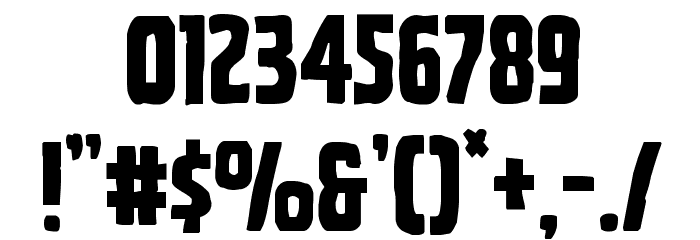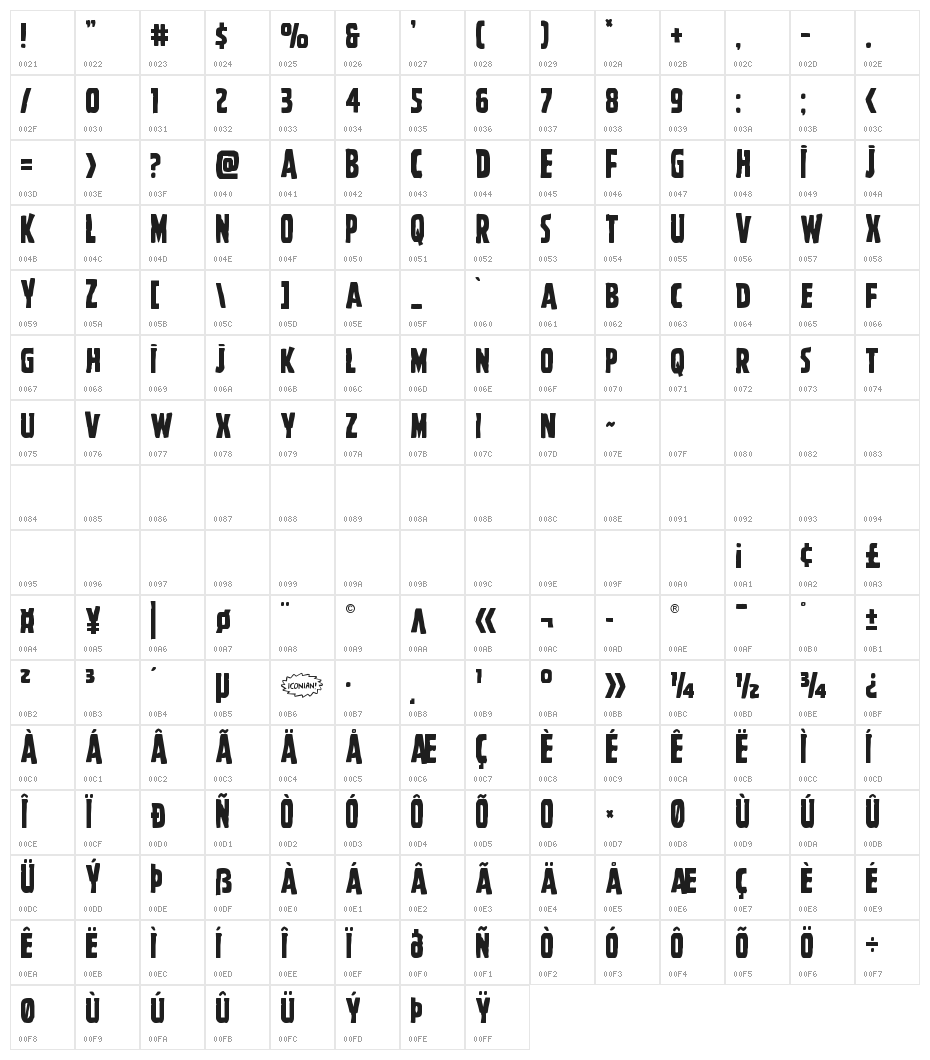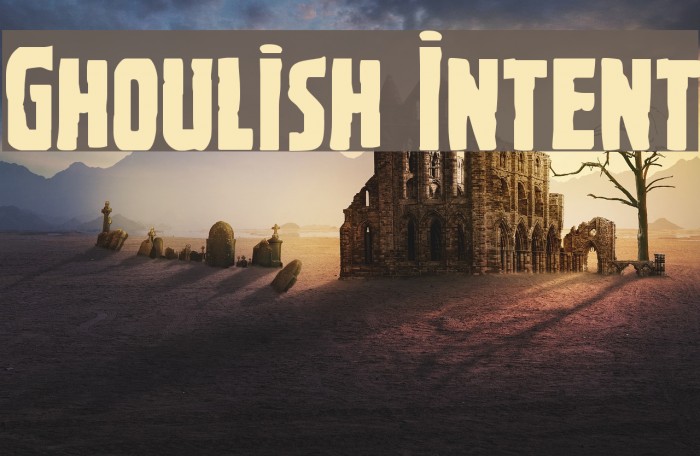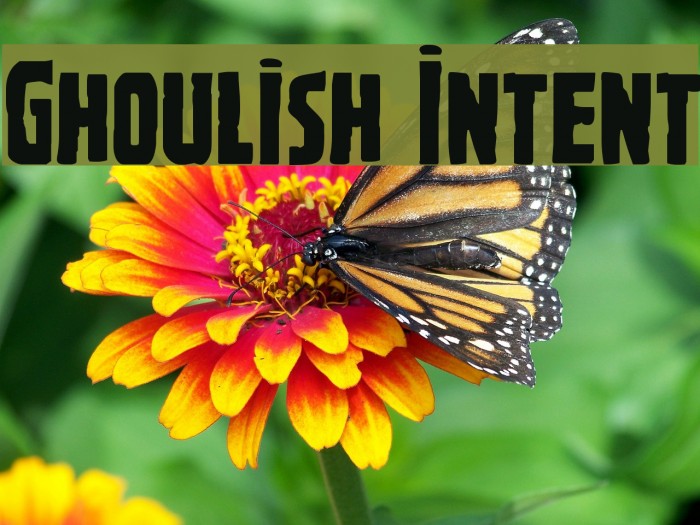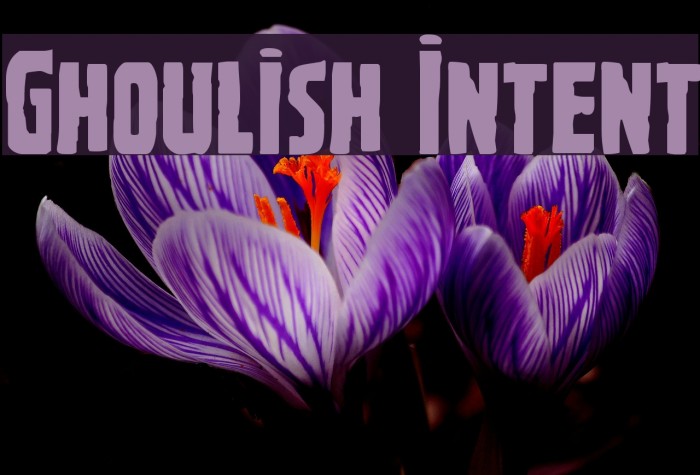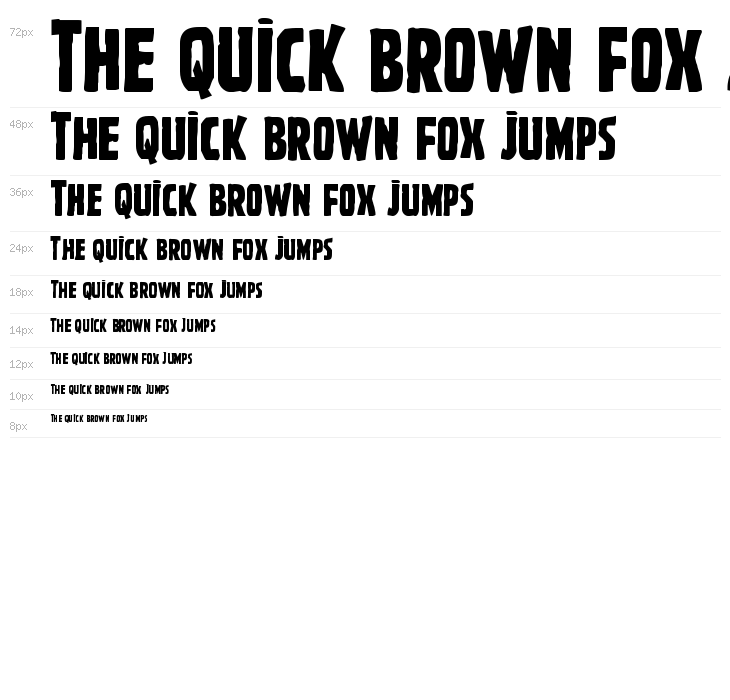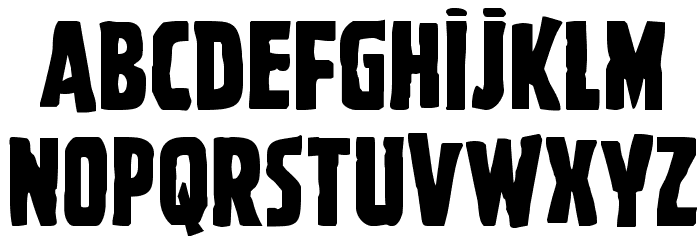
Ghoulish Intent Font
Ghoulish Intent Description
This font features a bold, jagged style that evokes a sense of mystery and spookiness. The characters are irregularly shaped, with uneven edges that give them a hand-drawn, eerie appearance. The uppercase and lowercase letters maintain a consistent height, contributing to a cohesive look. Numbers and special characters follow the same design principles, enhancing the font's thematic consistency. The overall aesthetic is reminiscent of horror or Halloween themes, making it ideal for projects that require a dramatic and unsettling visual impact.
Proposed ProjectsIdeal for Halloween posters, horror movie titles, themed party invitations, and haunted house signage.